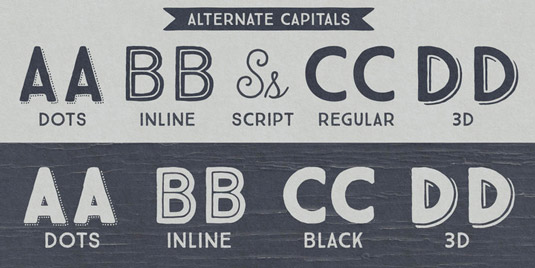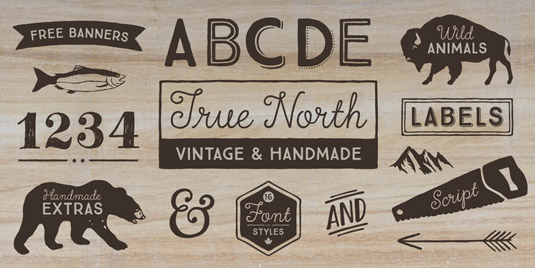
Font of the day: True North
True North by Cindy Kinash and Charles Gibbons
This vintage-style typeface True North was created by type designers Cindy Kinash and Charles Gibbons. Available from MyFonts, True North is described as being "a playful, fully-connected monoline script. Combine all 16 styles with the script, banners, labels and extras and you get a wonderful vintage design."